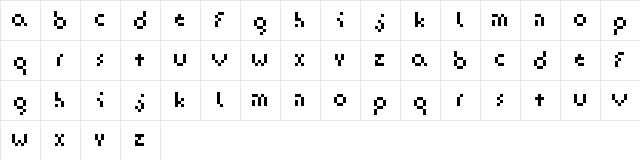
QInt Regular
| Designer | Rockfcs |
Design Context for QInt Typeface
QInt is a composed and adaptable typeface that performs quietly and consistently across a wide range of design contexts.